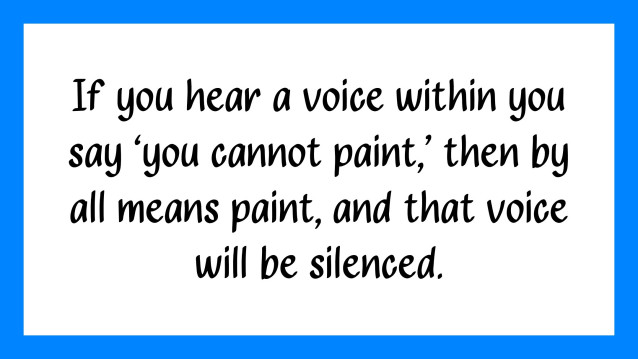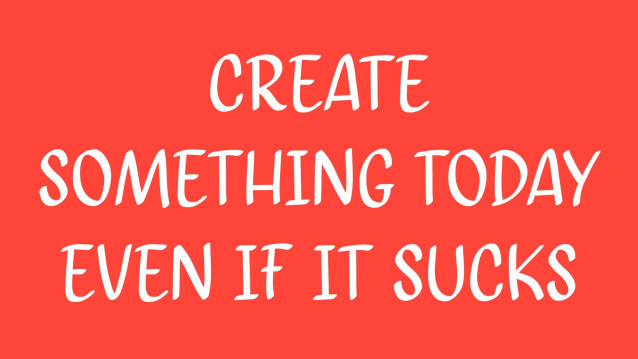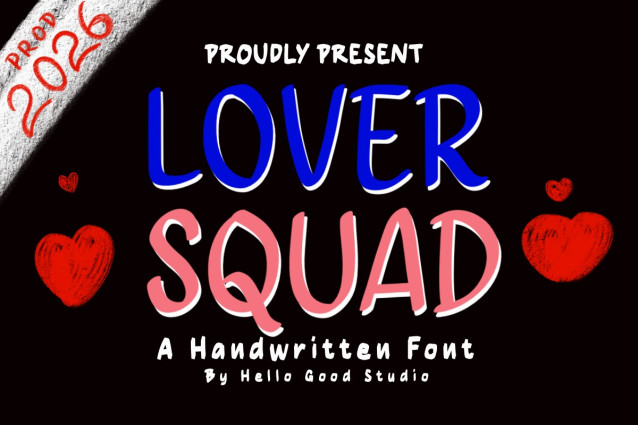
Lover Squad Font
Lover Squad Font is a simple and friendly handwritten font. Its natural and unique style makes it incredibly fitting to a large pool of designs. The only limit is your imagination!